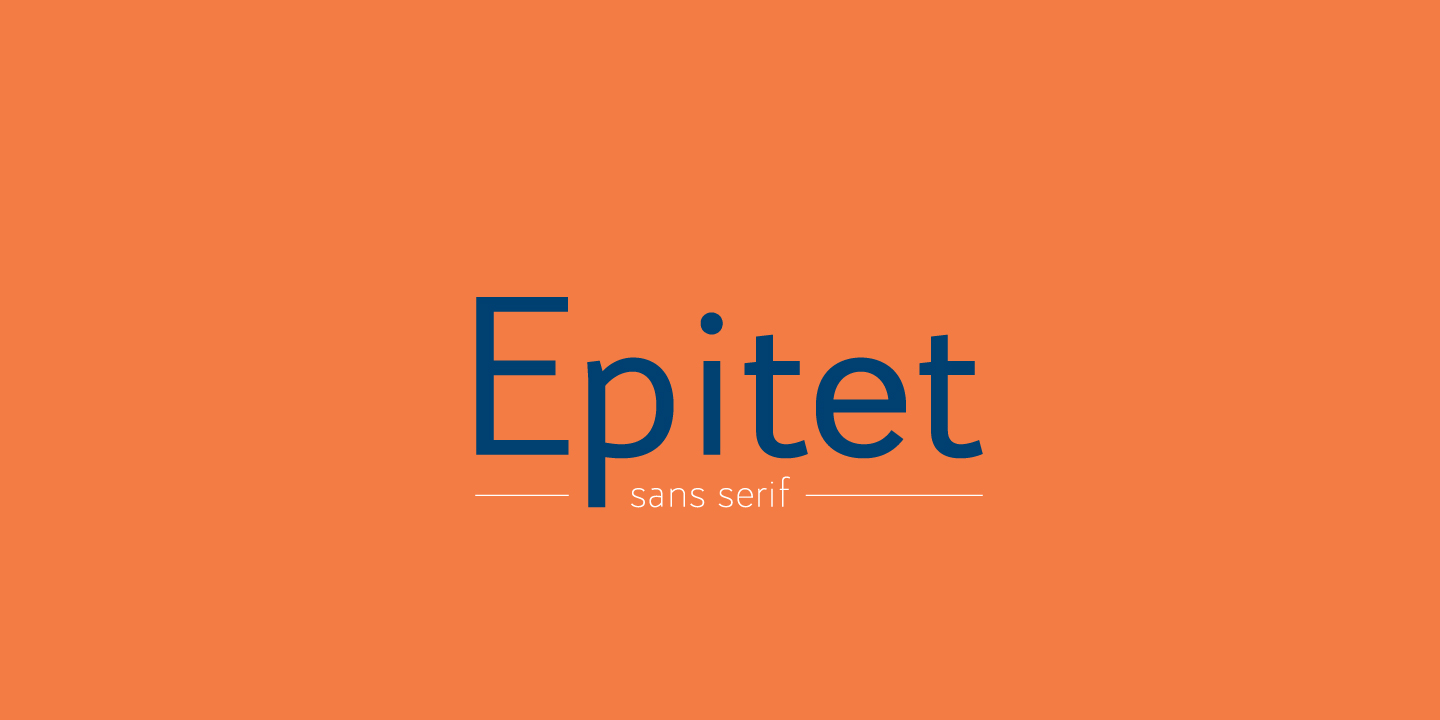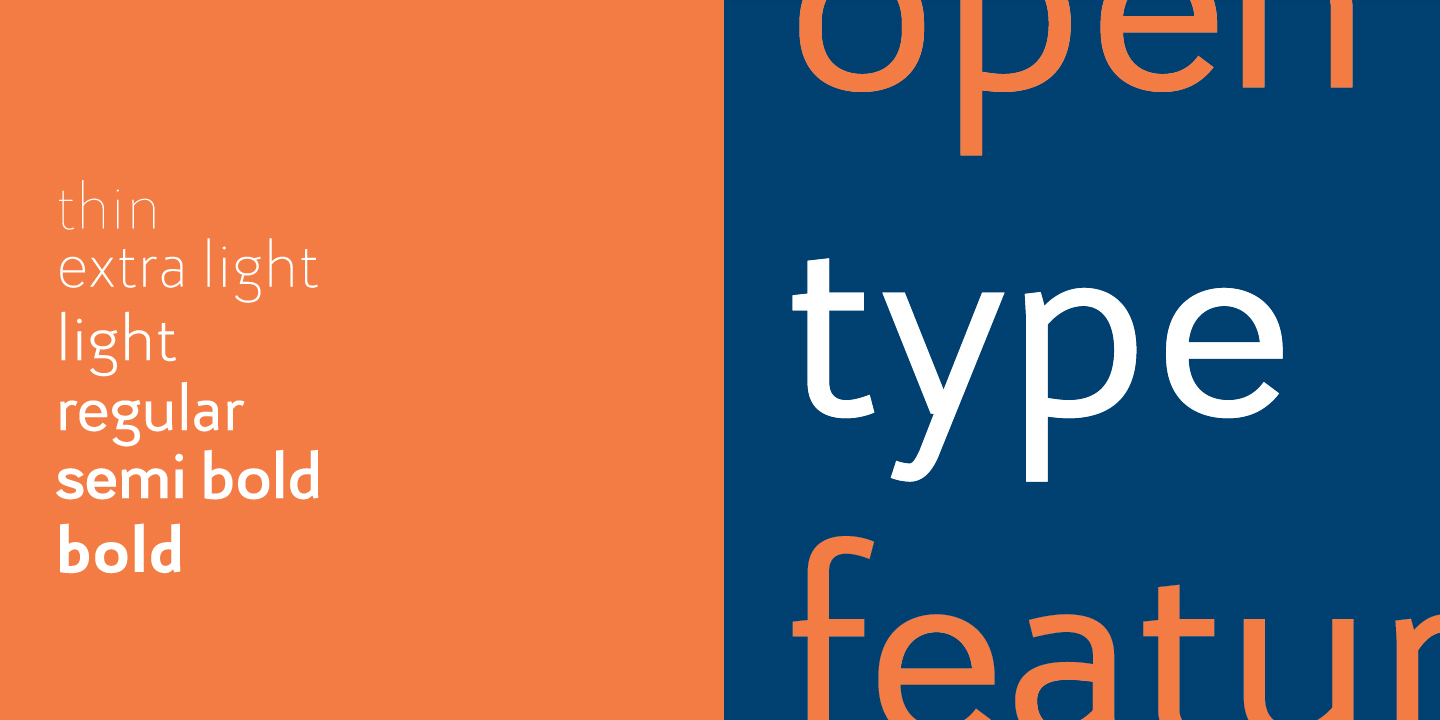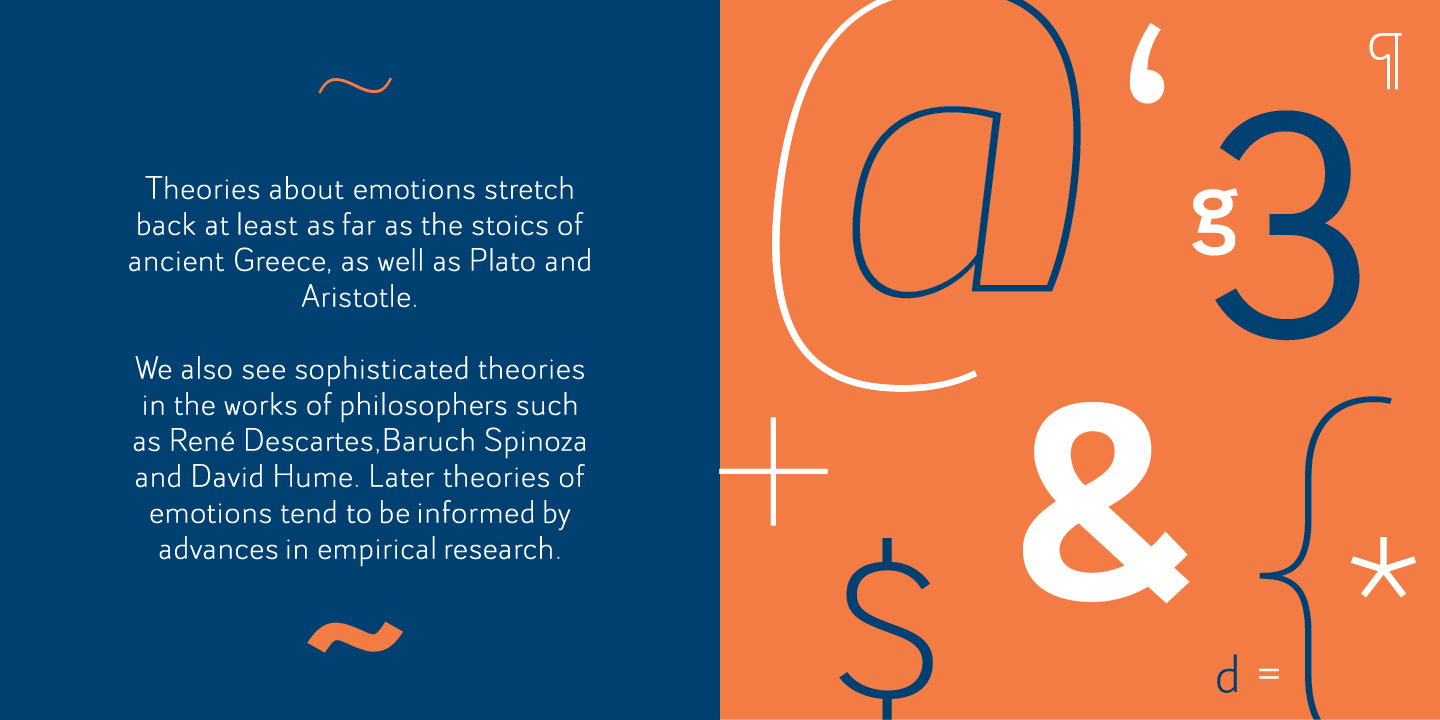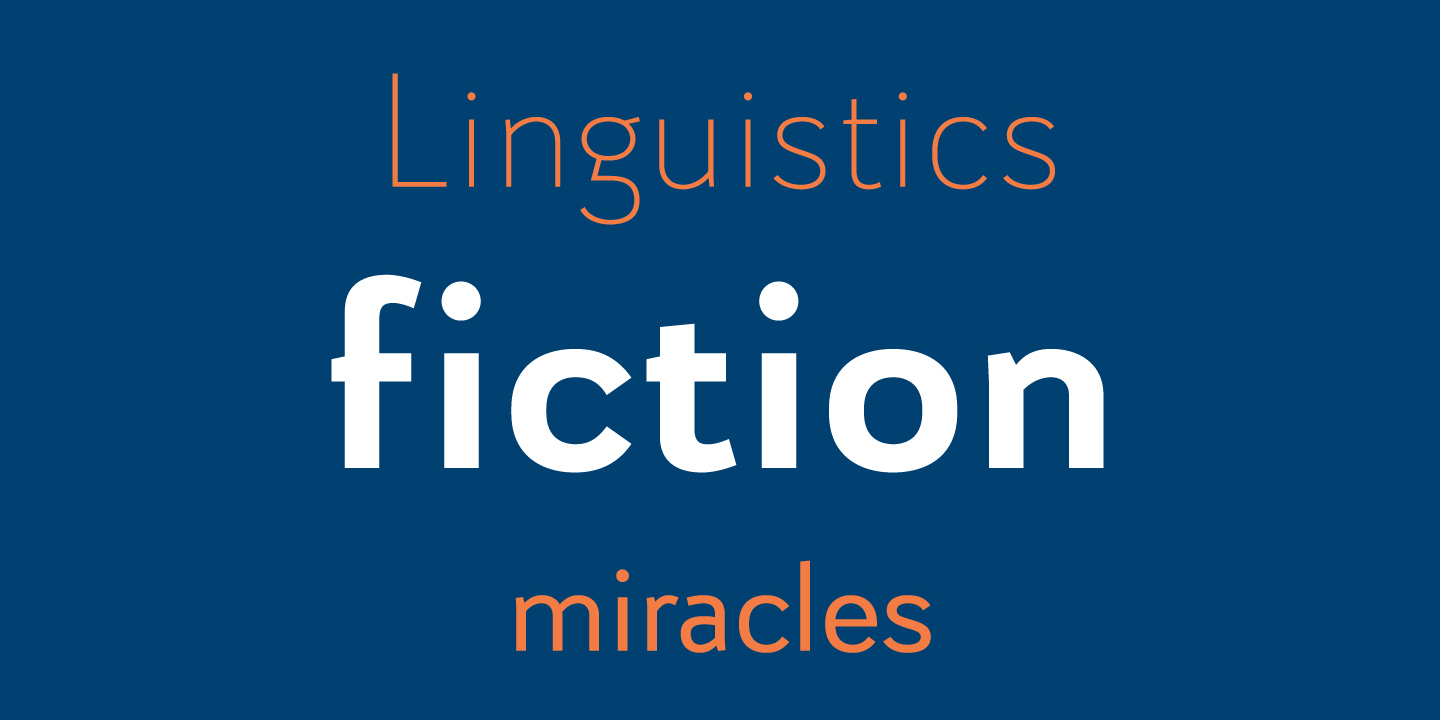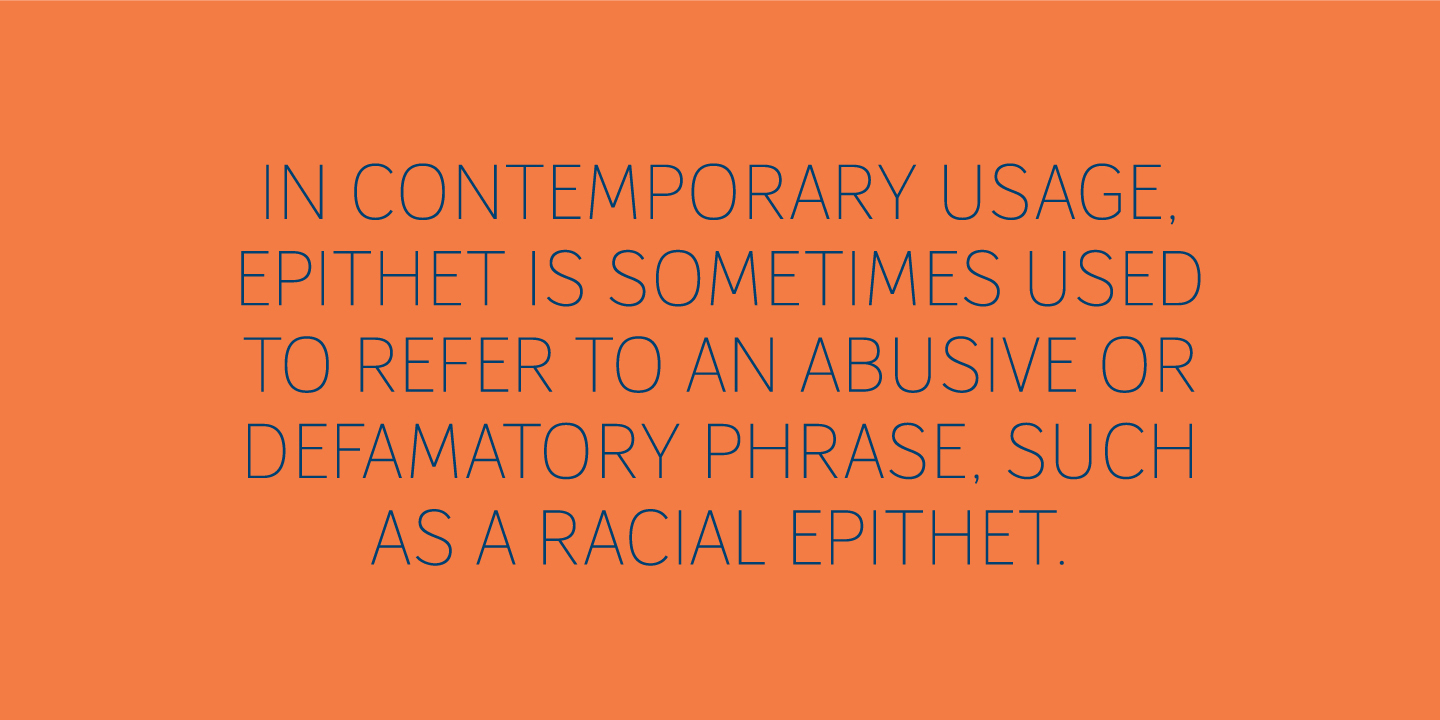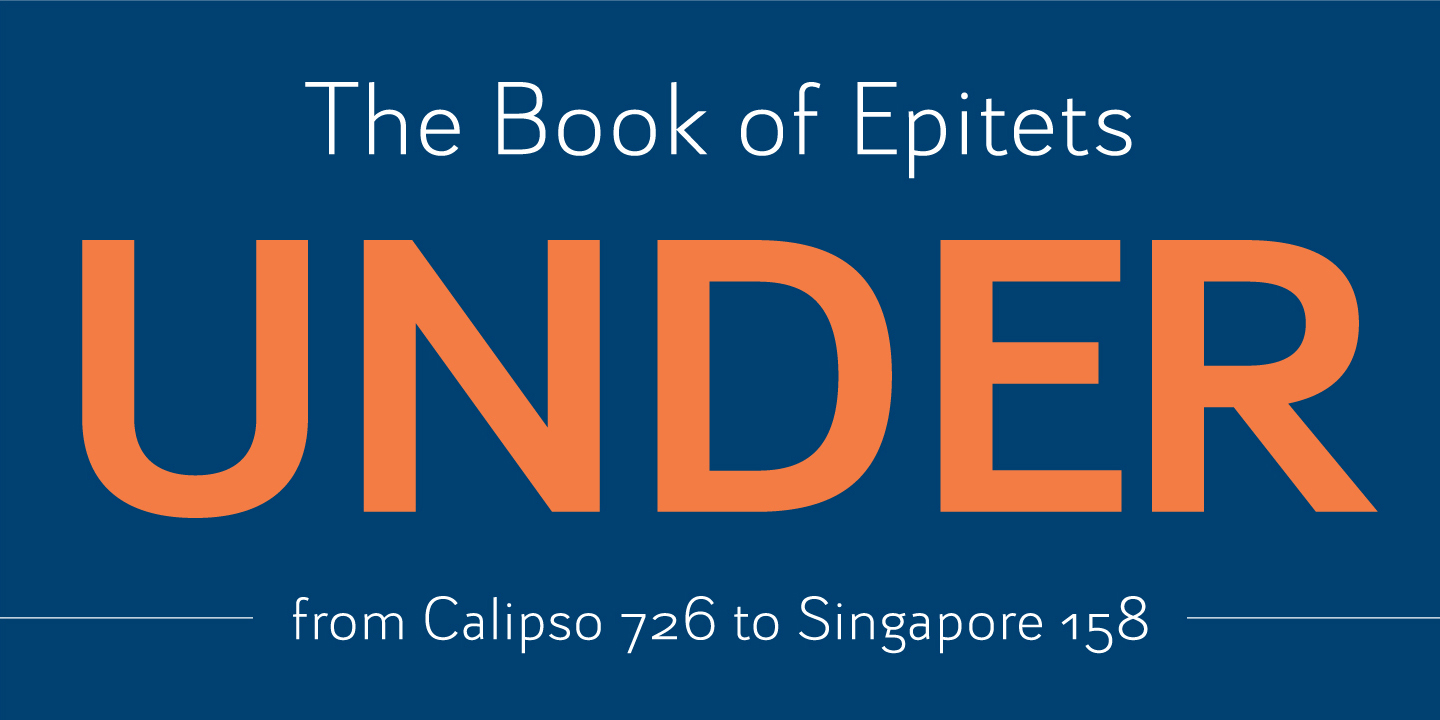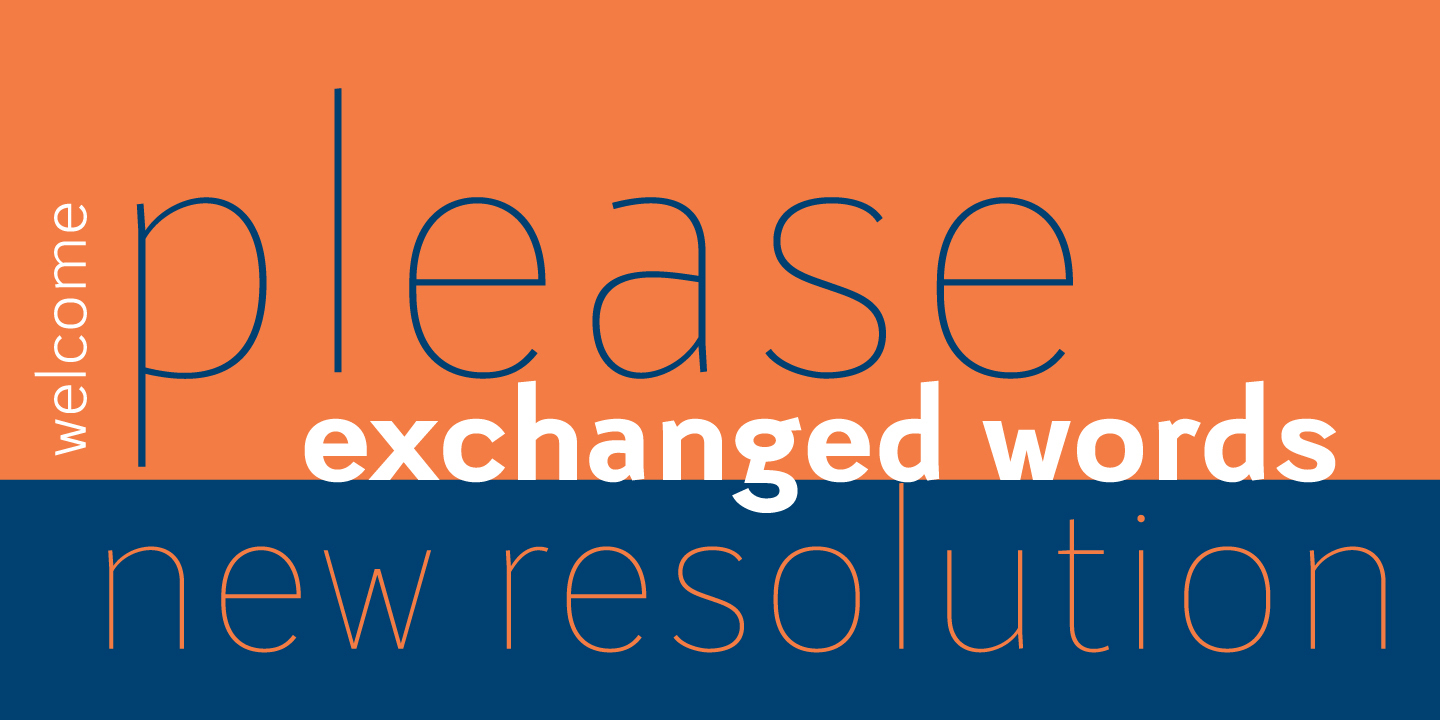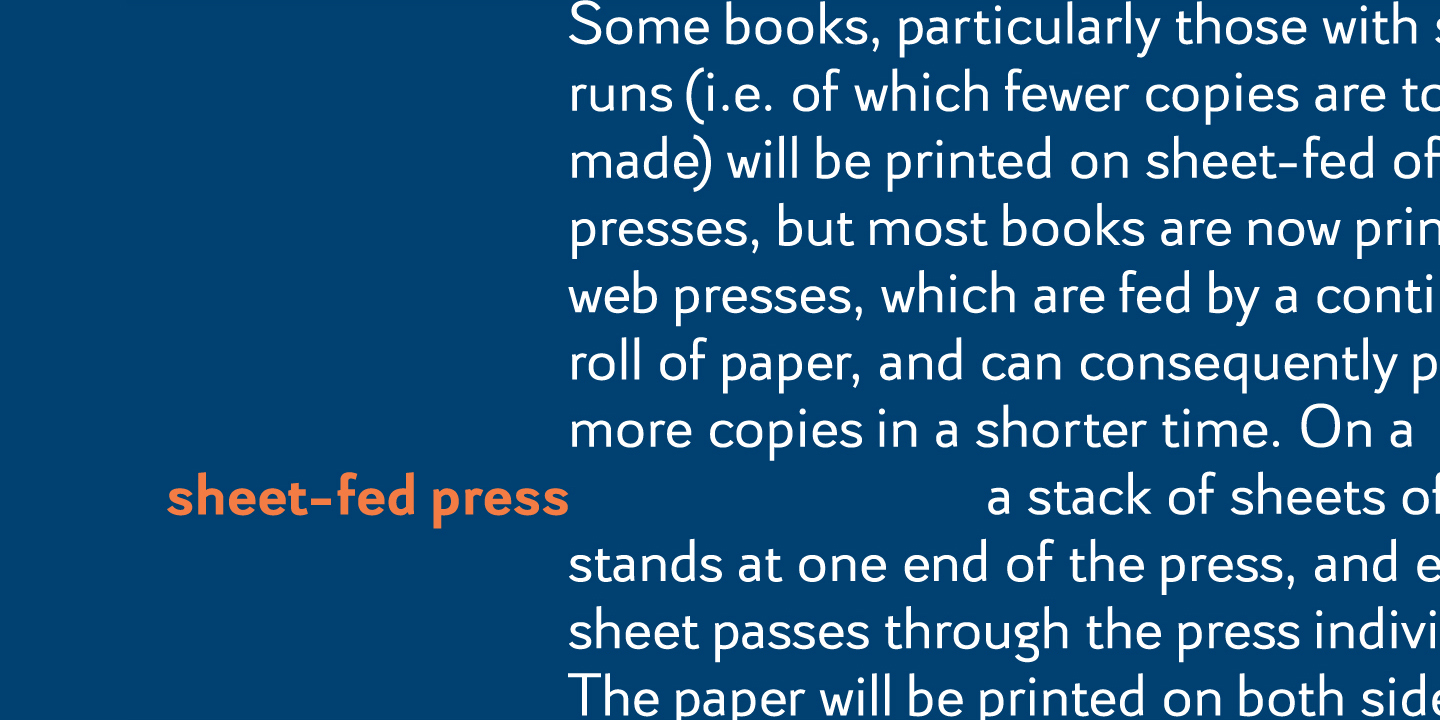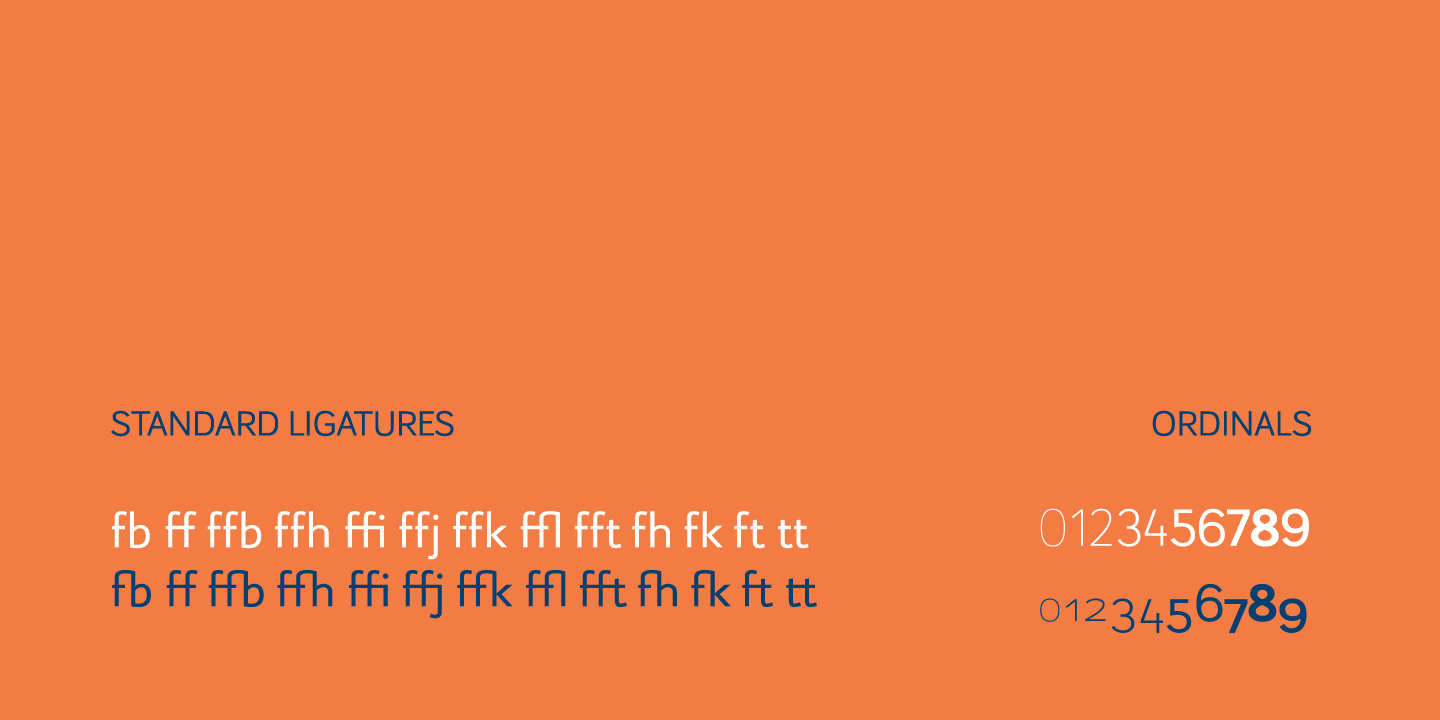
Epitet, a subtle compact type family with a modern mixture of geometrical and simple shapes, comes in 6 weights, from Thin to Bold. It is a clean elegant sans serif typeface, with a small x-height. Epitet is highly legible in all sizes. Very versatile and easy to use, Epitet can be used in a wide range of corporate and editorial applications. I'm sure Epitet could get even more epithets, but the appropriate use of Epitet would be the biggest one it could get.